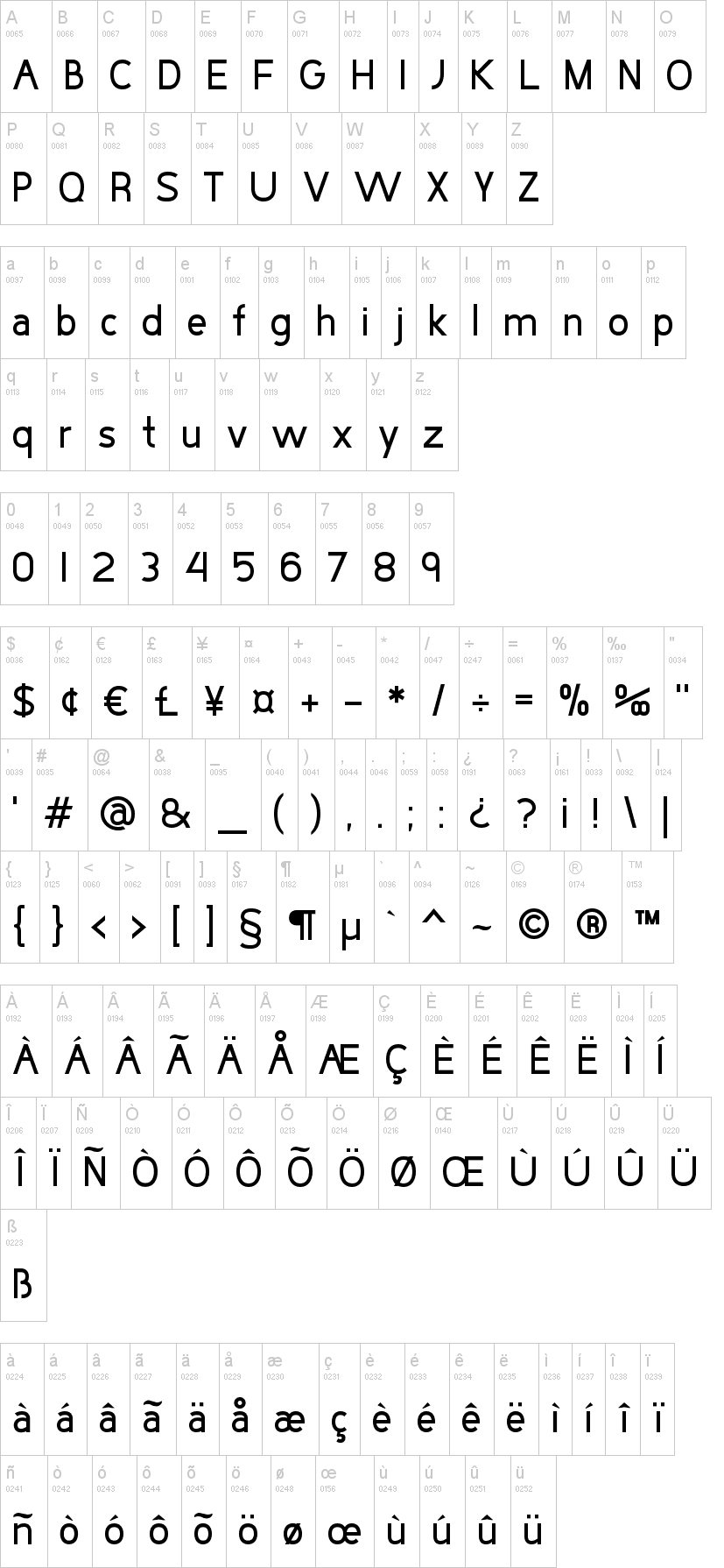
Шрифт Bucko
Bucko is a San Serif geometric font with slight humanist tones. It is a standard Latin alphabet currently available in book, regular and bold with there italic variants.